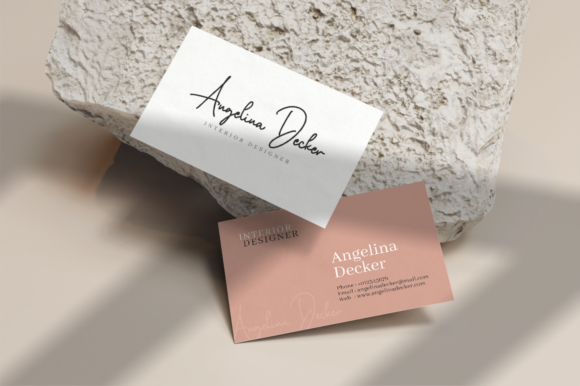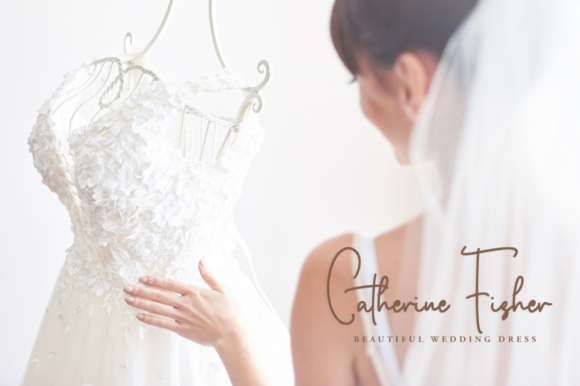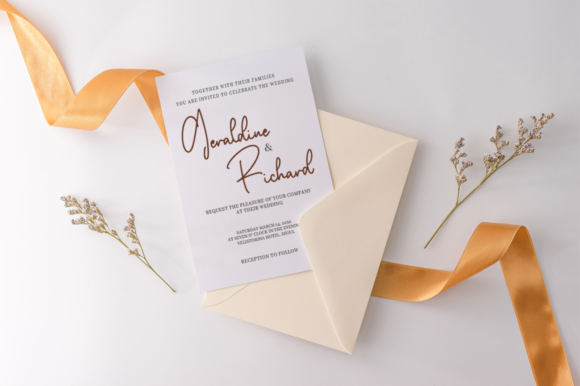
Introduction to Andina Janelia Font
Andina Janelia is a modern script font which is combining classic calligraphy with a modern style.
Its dancing baseline will give your designs an elegant and authentic look .
Key Features of Andina Janelia Font
Why Choose Andina Janelia Font?